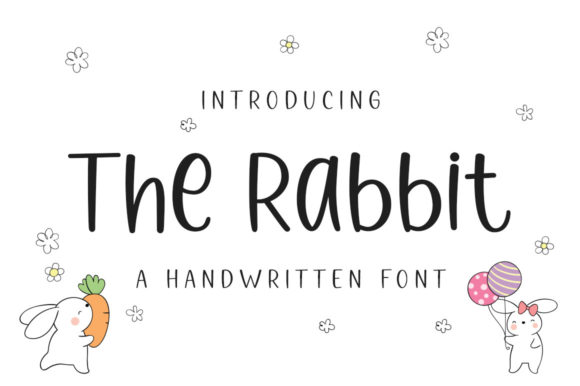
Introducing The Rabbit Font, the playful and charming display font that will captivate your designs with its irresistible cuteness! Inspired by the whimsical charm of handwritten notes, The Rabbit Font is the perfect choice for adding a touch of warmth and personality to your creations.
Picture this: a cheerful chalkboard sign adorned with the adorable letters of The Rabbit Font, welcoming customers with a smile. Or a vibrant poster bursting with creativity, its message leaping off the page thanks to this eye-catching font. The possibilities are endless!
Whether you're crafting logos, designing packaging, or creating eye-catching social media graphics, The Rabbit Font will elevate your designs to new heights of cuteness. Its delicate brushstrokes and playful loops will add a unique and memorable touch that will leave a lasting impression on your audience.
But don't just take our word for it—let The Rabbit Font speak for itself! Download it today and let its delightful charm inspire your creations. From heartwarming greetings to whimsical invitations, this font has the power to transform ordinary words into extraordinary works of art.
So, why settle for ordinary when you can have extraordinary? Embrace the infectious charm of The Rabbit Font and watch as your designs blossom with irresistible cuteness!